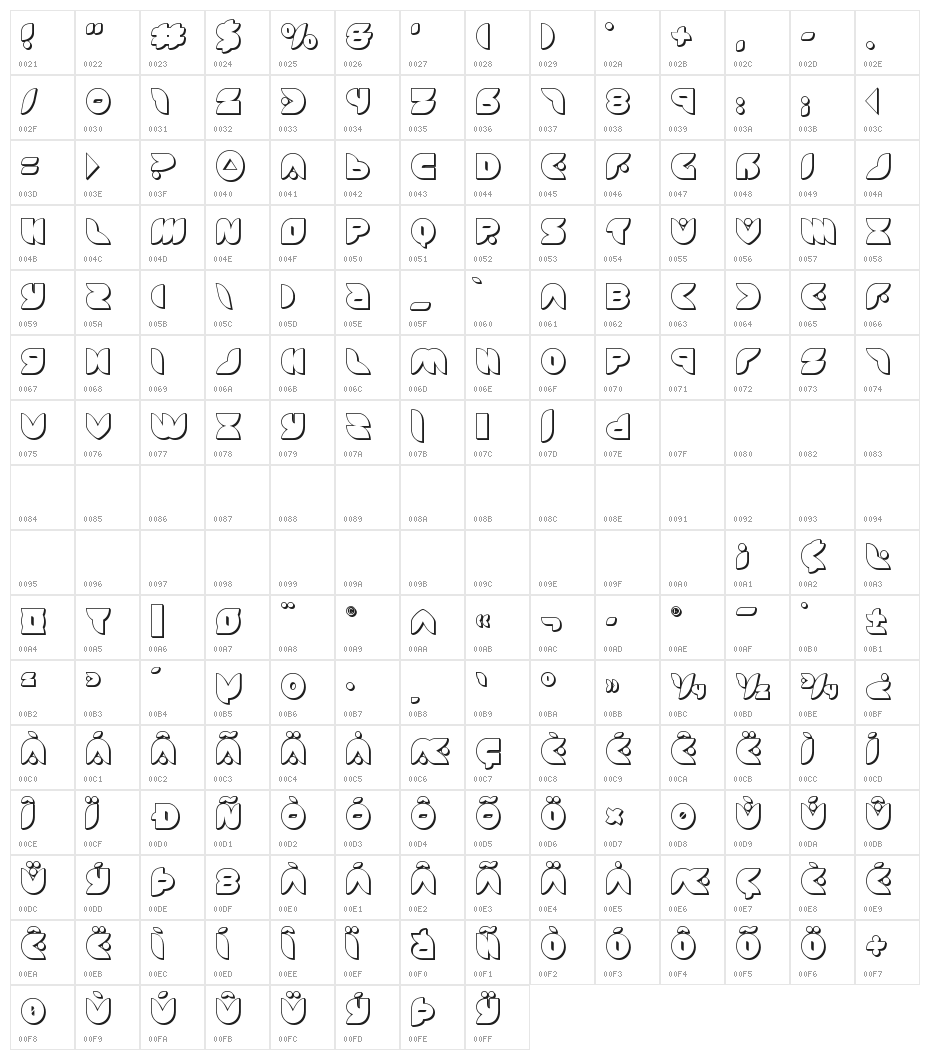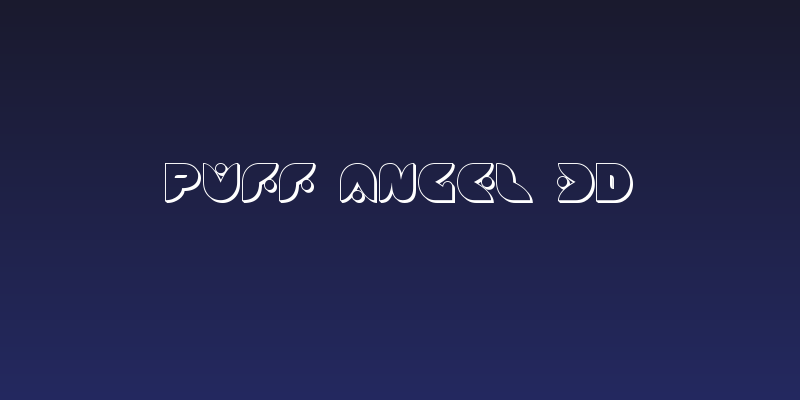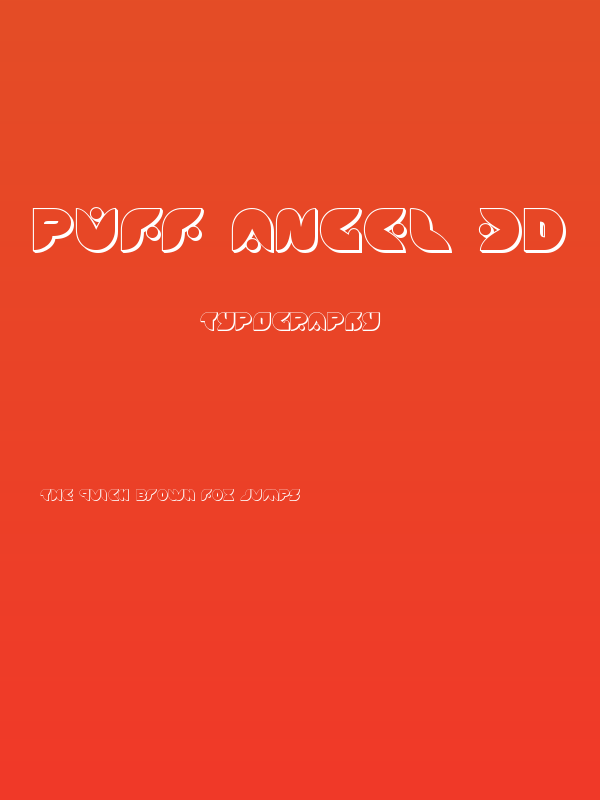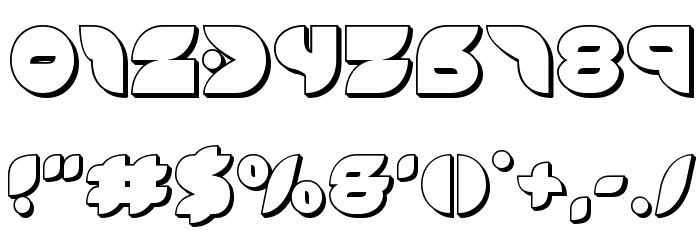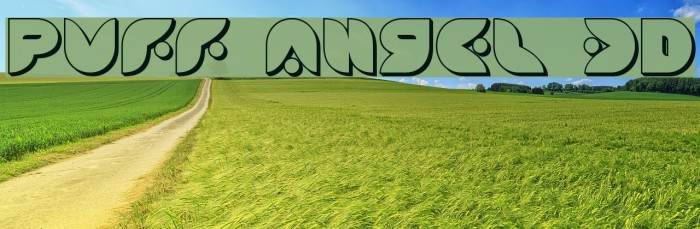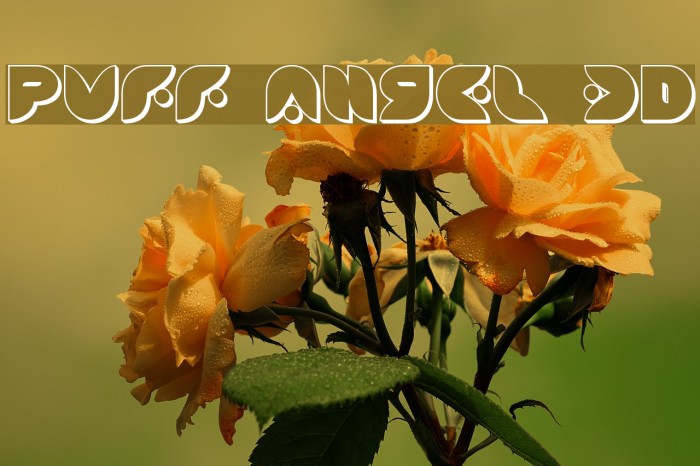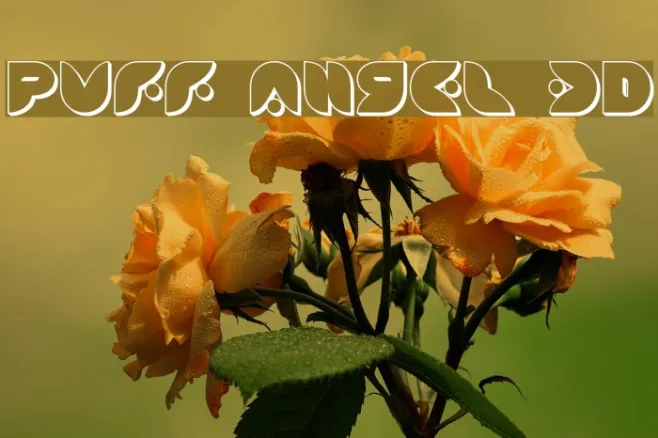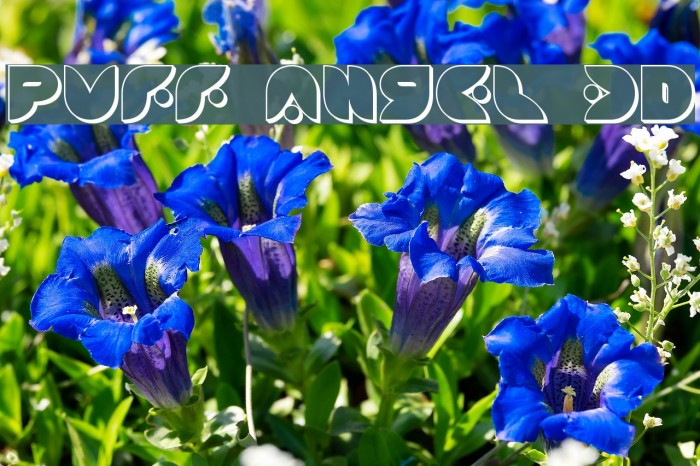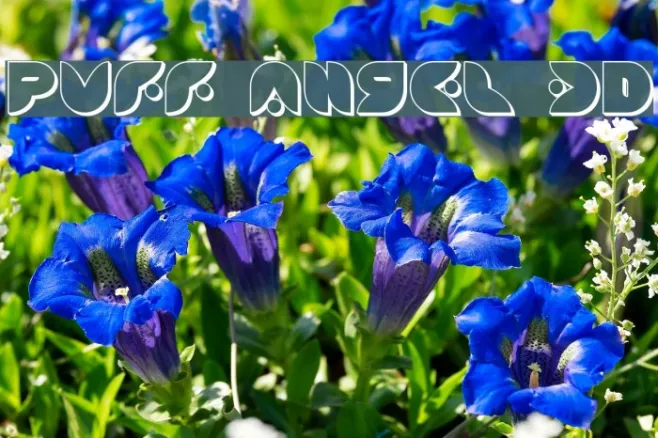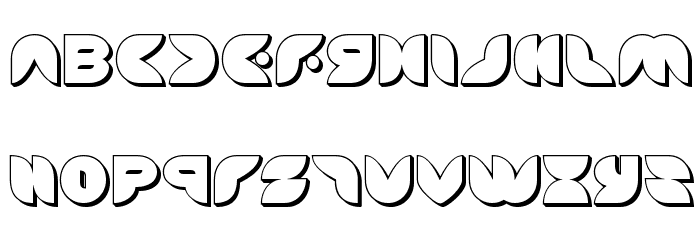
Puff Angel 3D Font
Puff Angel 3D Description
This font features a playful, rounded 3D style with a bold outline that gives each character a puffed appearance. The letters are designed with a consistent thickness, creating a cohesive look across the alphabet. The uppercase and lowercase letters share a similar structure, enhancing the uniformity of the font. The numbers and special characters are crafted to match the whimsical and bold aesthetic, making them stand out in any design. This font's unique style is perfect for projects that require a fun and eye-catching typeface.
| Overall Style | Playful, Modern |
| Proposed Projects | Ideal for children's books, playful branding, posters, and creative digital content. |